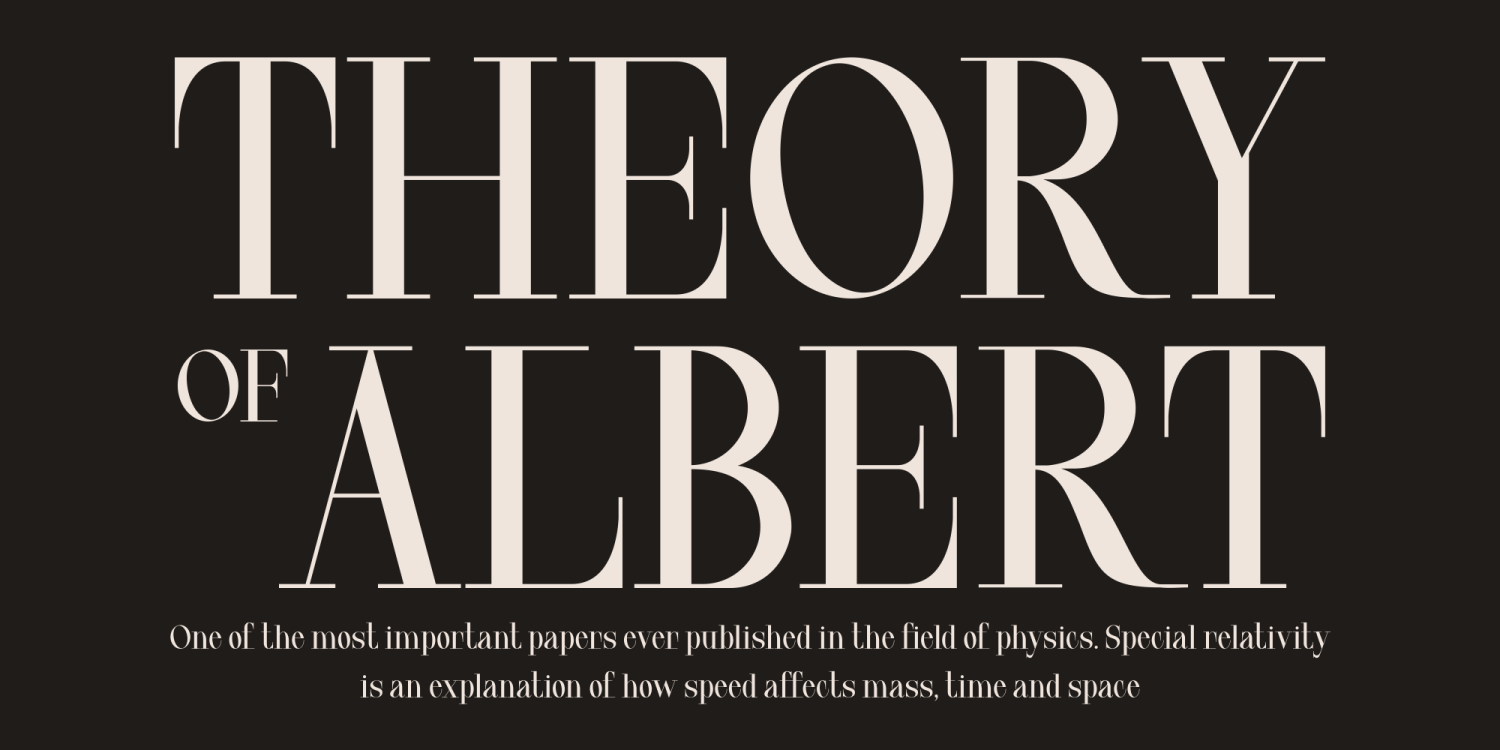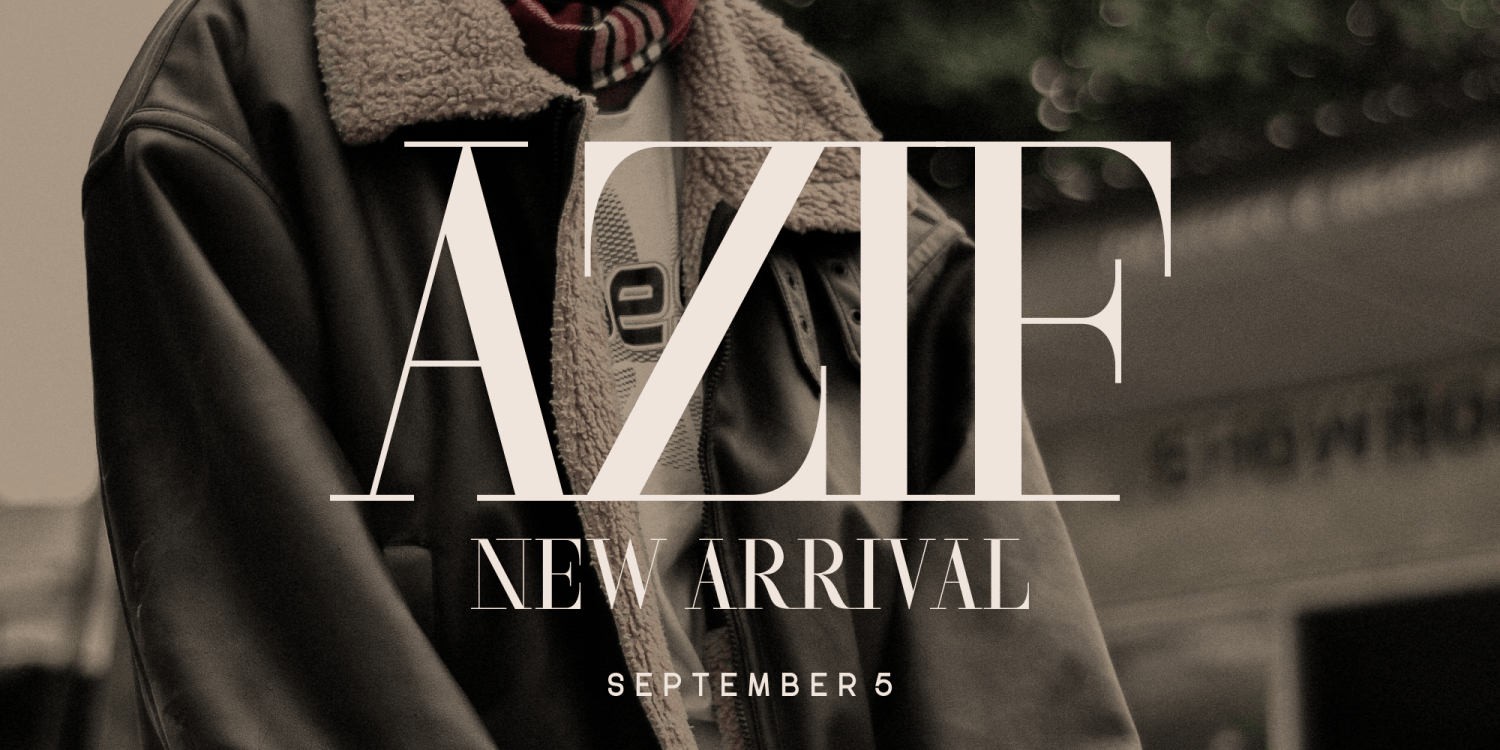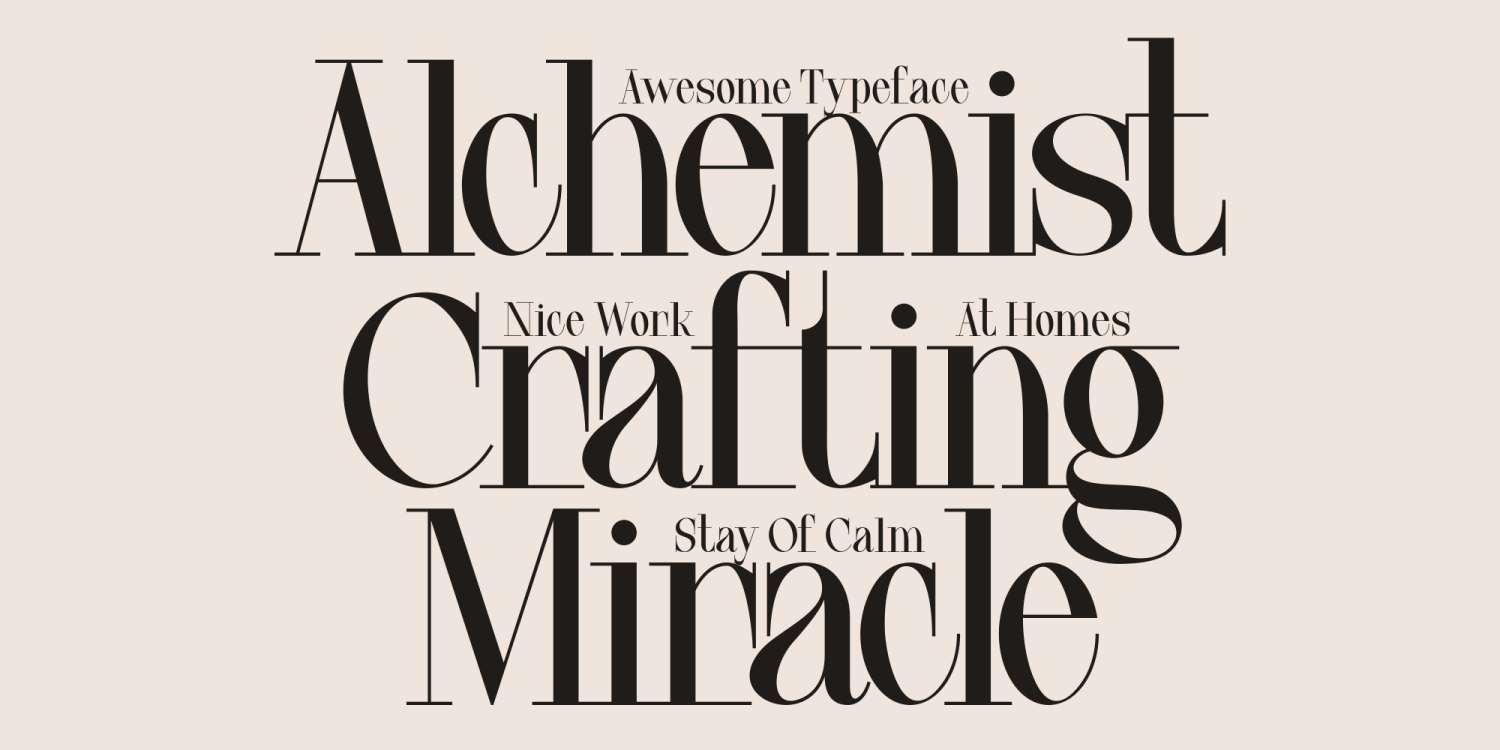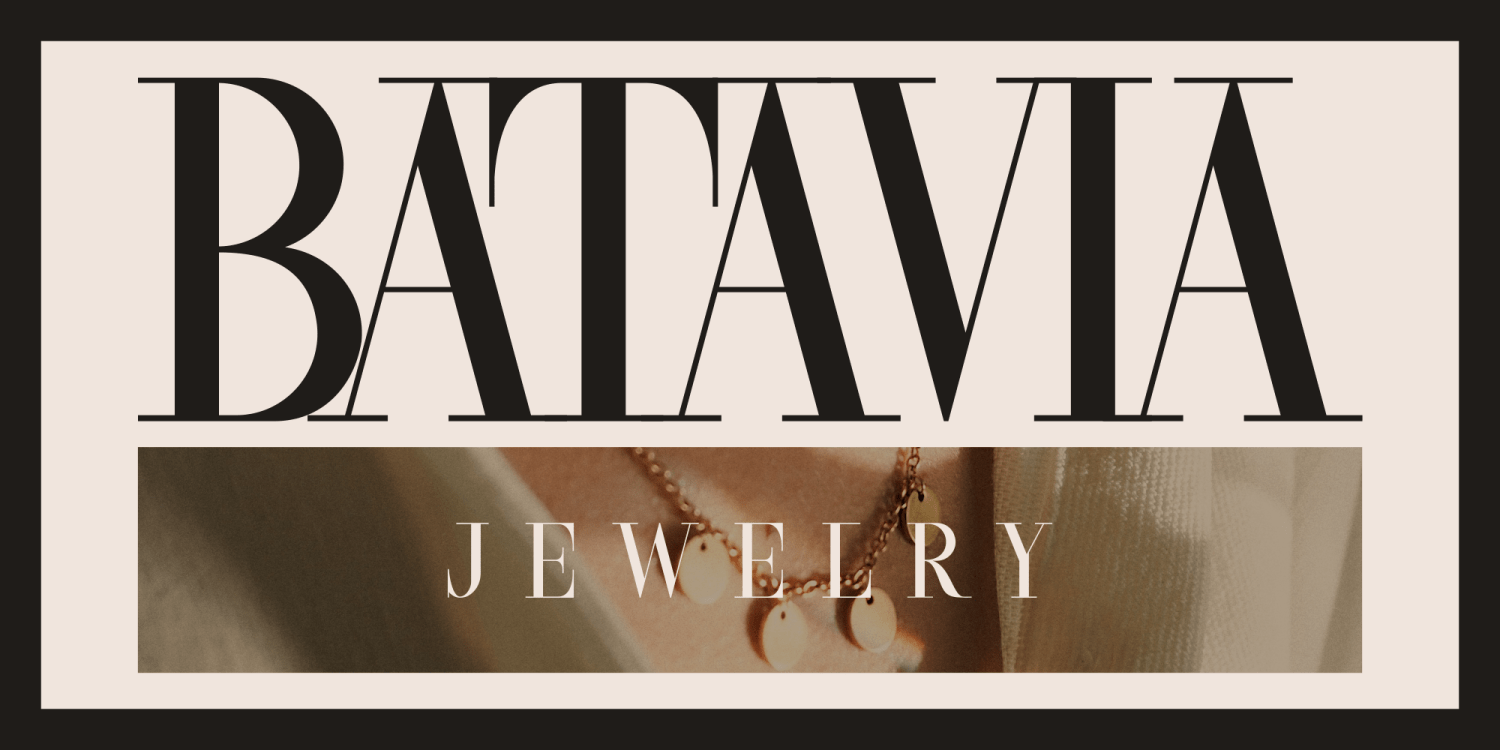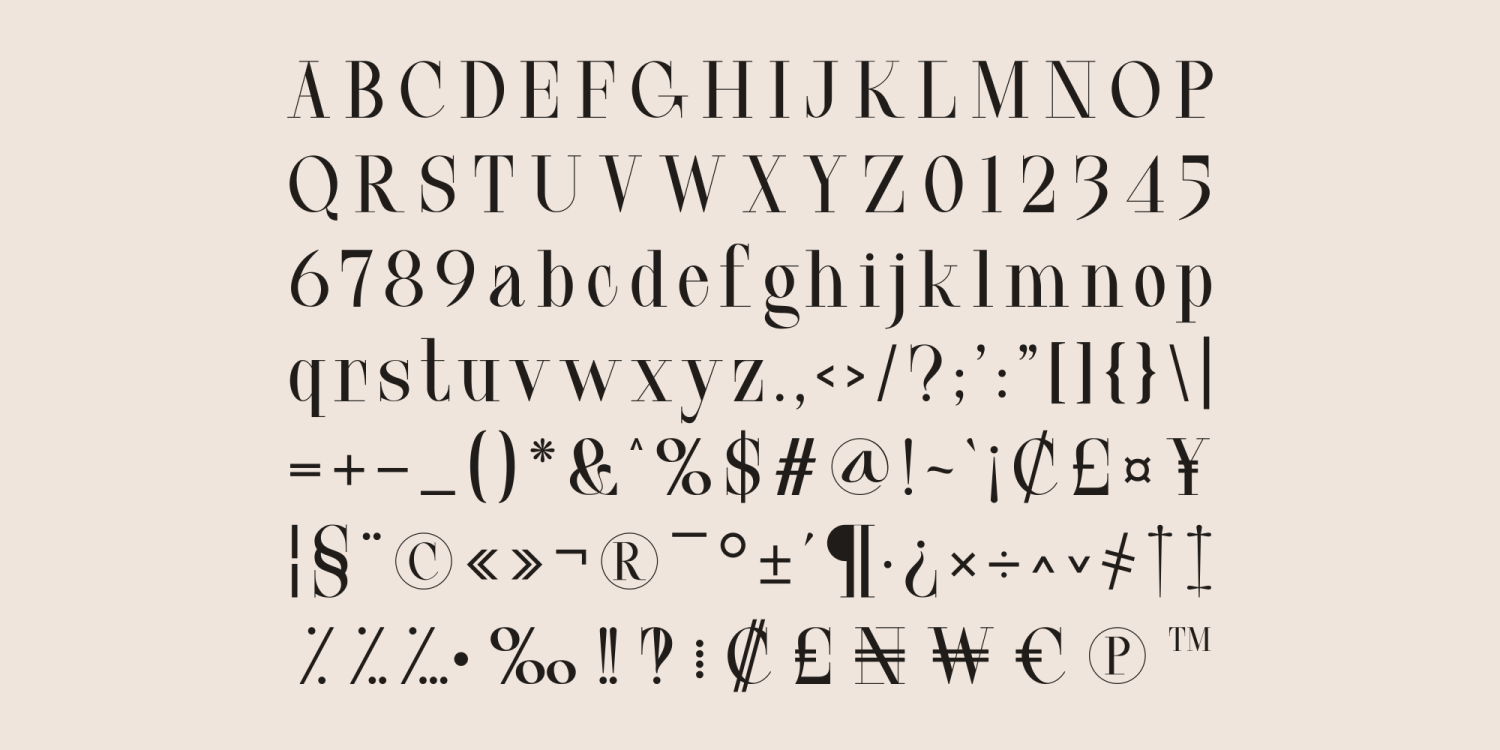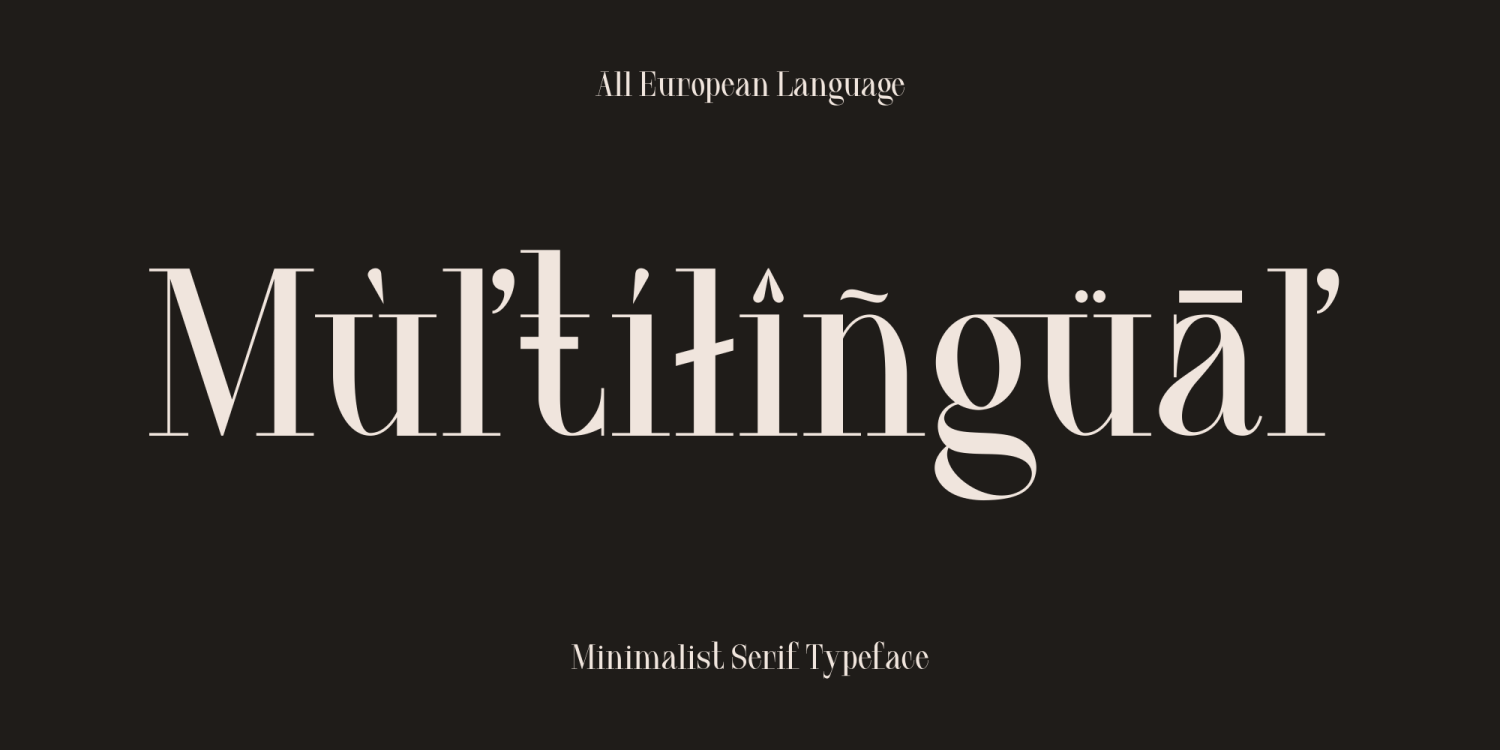
Hand Midas
Font Family by Marvadesign
Hand Midas is a minimalist serif font that exudes an aura of wealth and sophistication, as the name suggests. With its slim, slightly elongated serifs, it embodies elegance and refinement. Each character is carefully crafted, maintaining a balance between simplicity and complexity. The tall shape adds a sense of authority and authority to the text, making it suitable for conveying messages of luxury and exclusivity. Hand Midas is the epitome of understated beauty, perfect for projects that demand a touch of class and prestige.